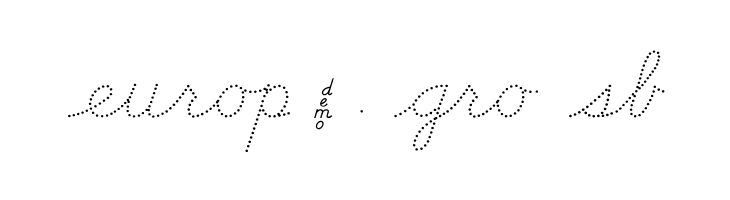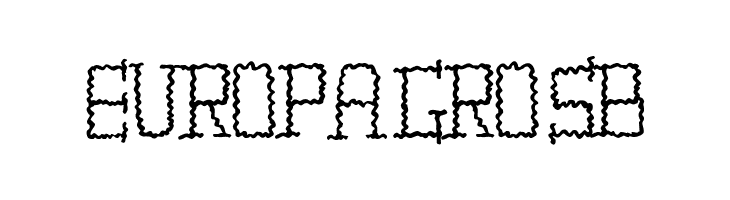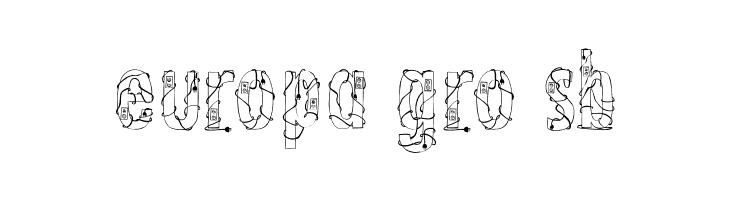
A dotted line font mimicking handwriting practice sheets, ideal for educational use.
A playful dotted font with a consistent, slanted style.
A decorative font with zigzagging, interconnected lines for a playful look.
A flowing cursive font with interconnected strokes and a handwritten appearance.
A playful, dot-based font with a whimsical and textured appearance.
A playful and intricate font with wire-like elements wrapping around each character.